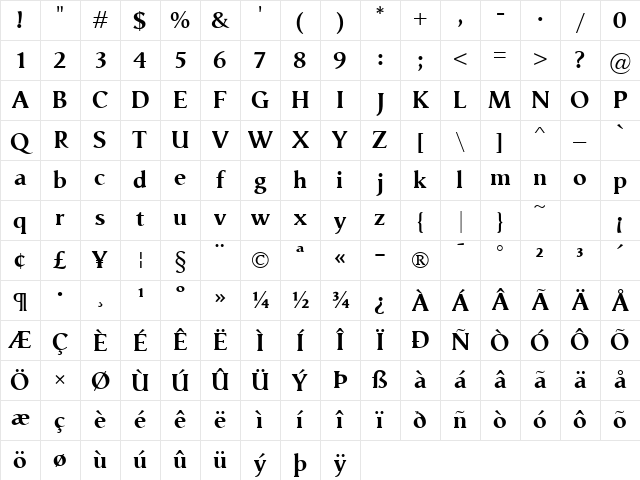
Vega antikva Bold
Design Context for Vega antikva
Vega antikva is a composed and adaptable typeface that performs quietly and consistently across a wide range of design contexts. Its bold stroke weight gives it real presence on the page.